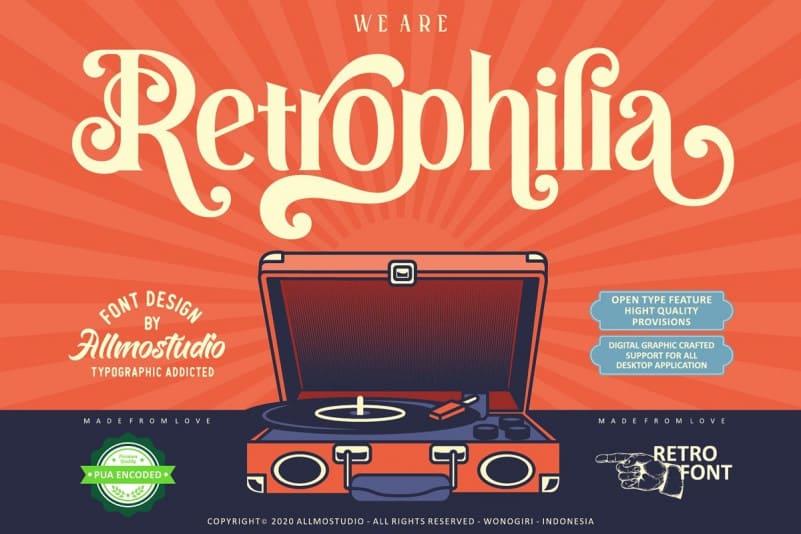
Retrophilia Serif Font
Thanks for checking out Retrophilia Font! Classy Bold serif font with beautiful alternate characters and also ligature which makes it easy for you to create a logo for your personal branding and your business beautifully.
Retrophilia is perfect for many different projects such as logos & branding, invitation, stationery, wedding designs, social media posts, advertisements, printed quotes, product packaging, product designs, label, photography, watermark, special events or anything.